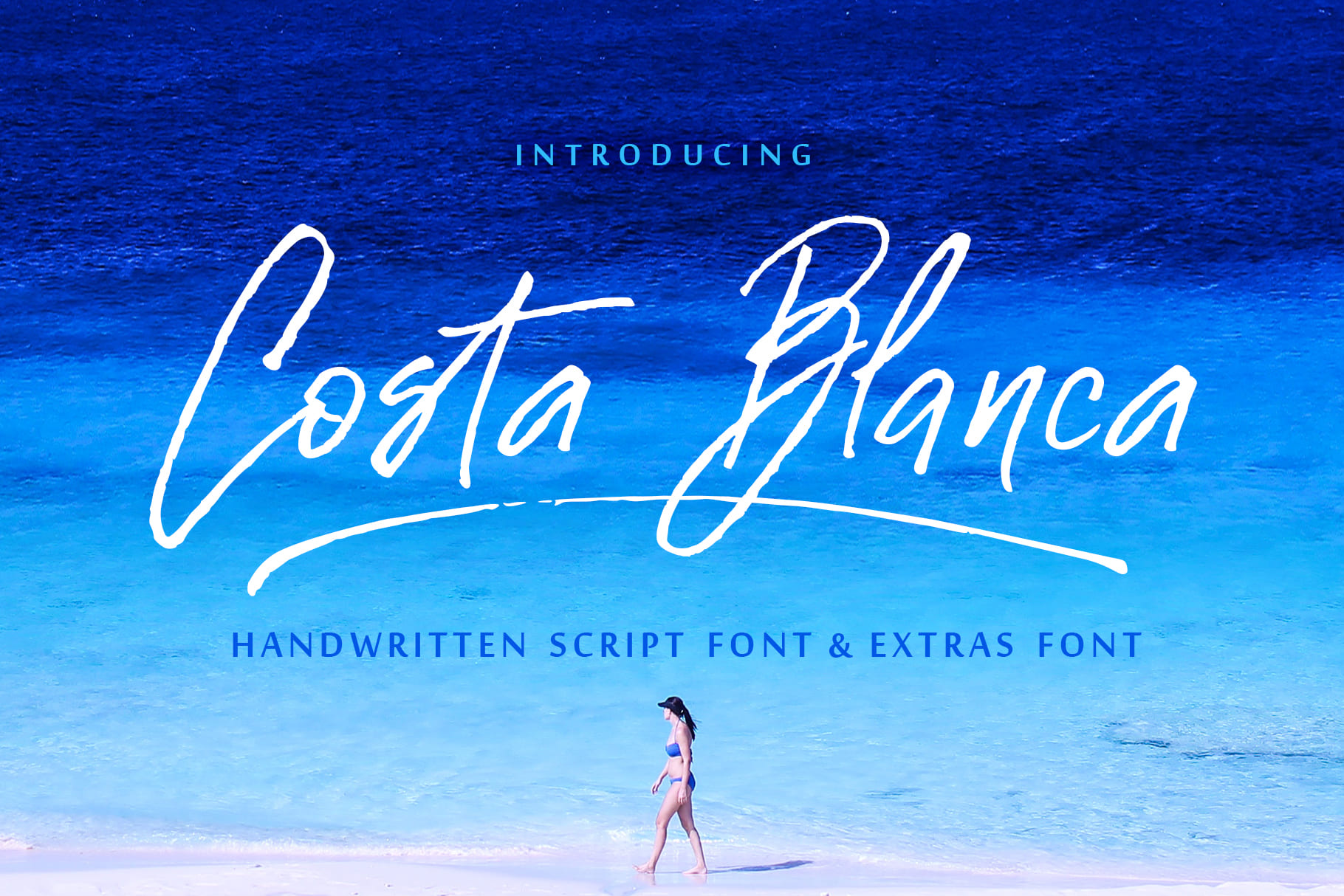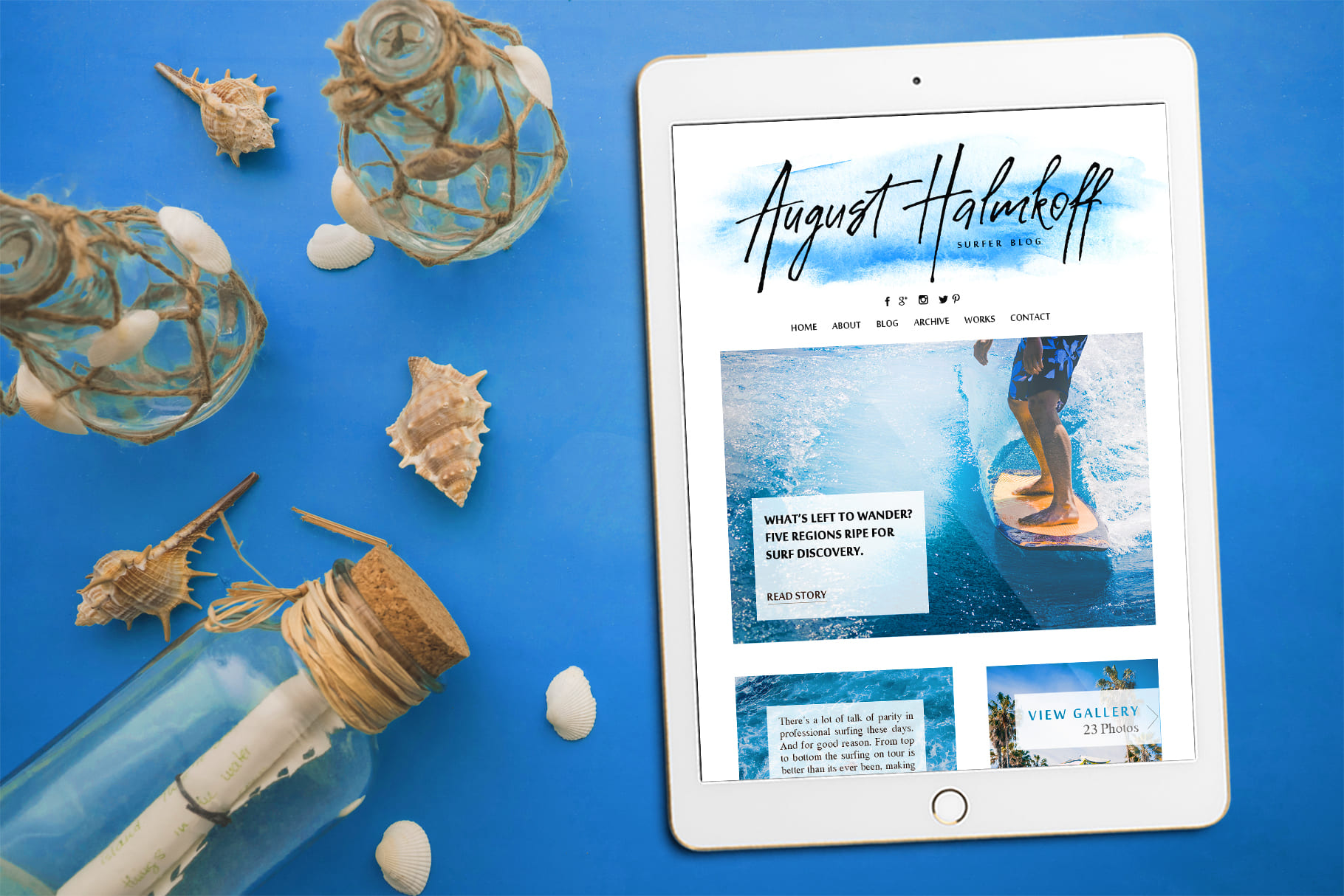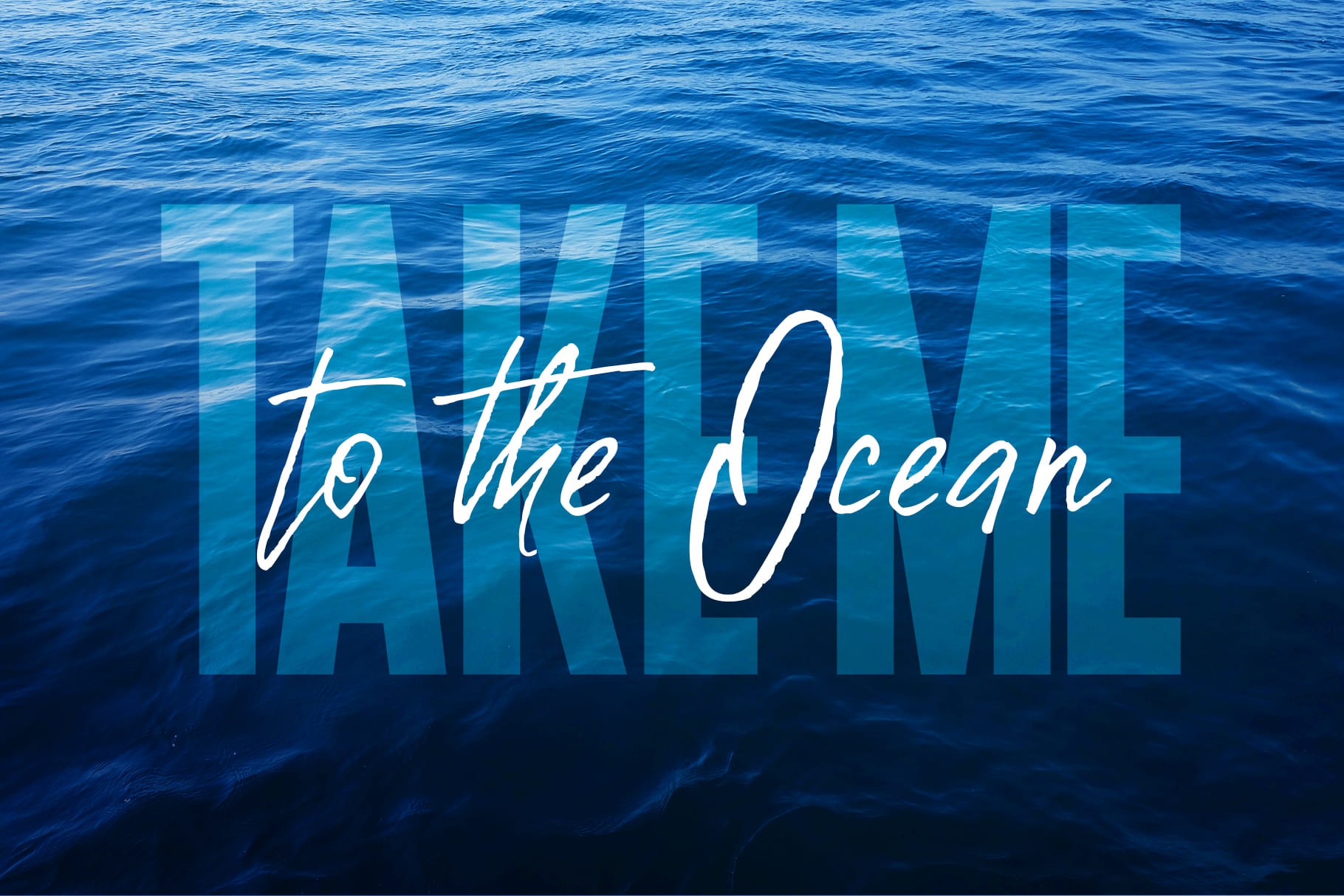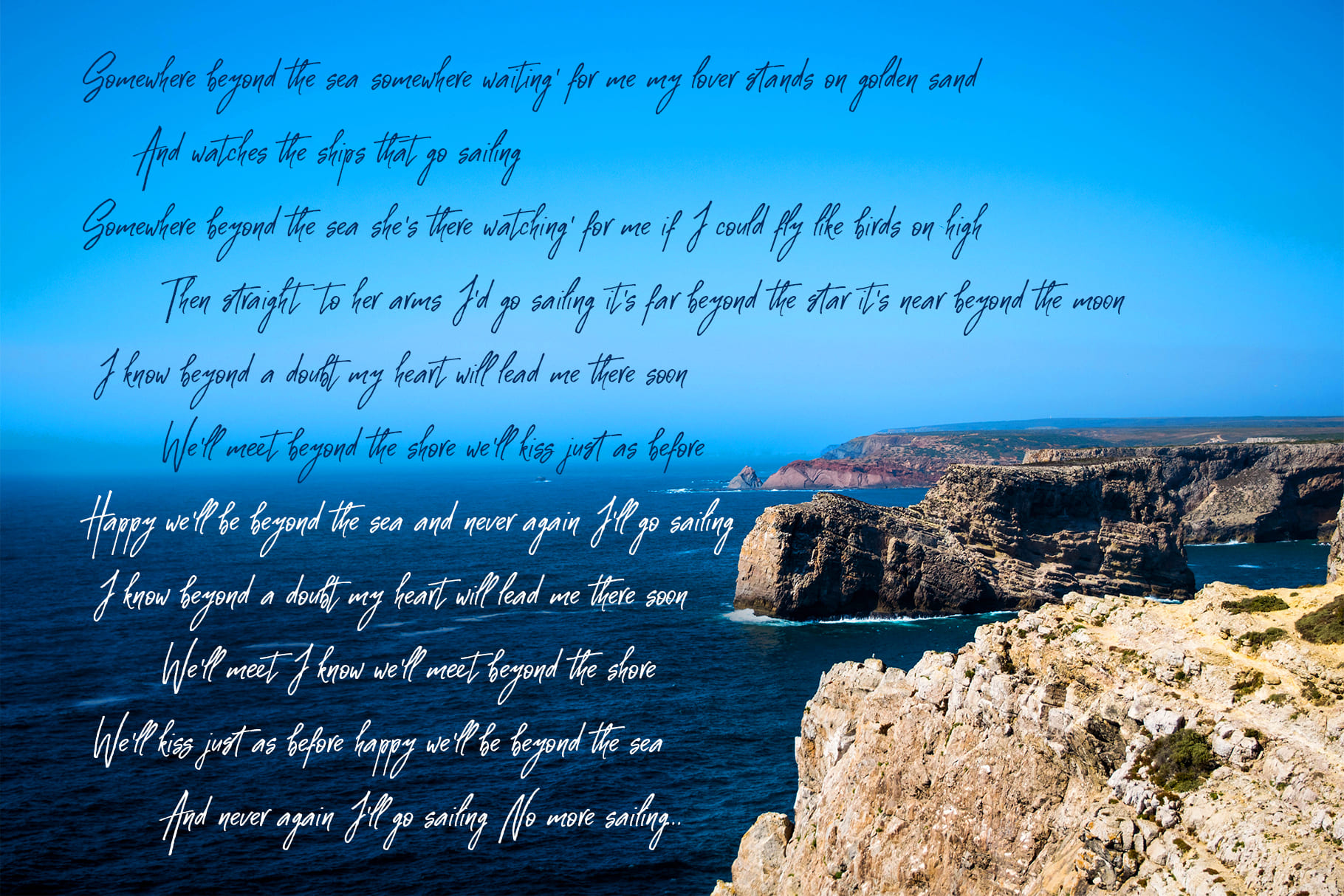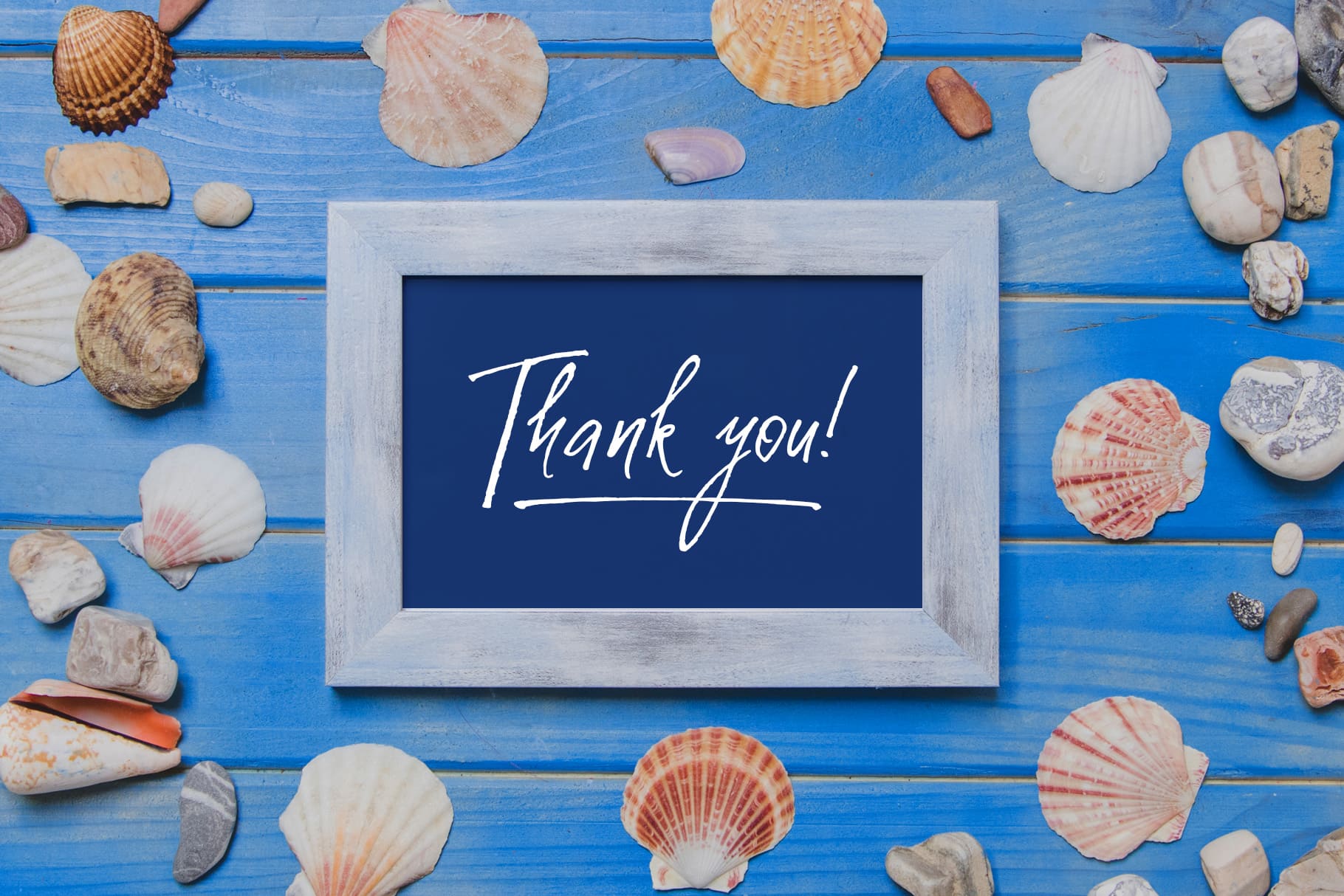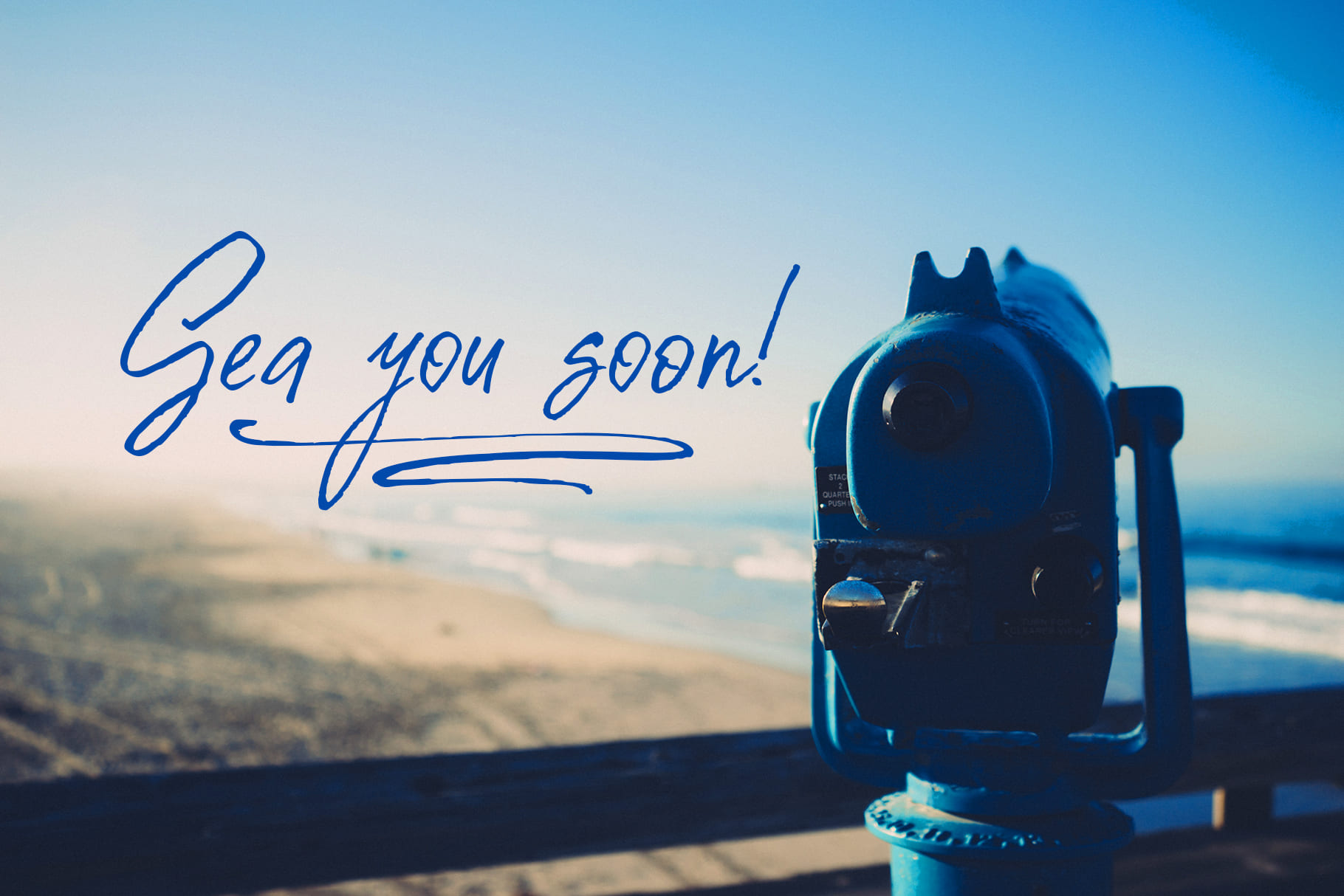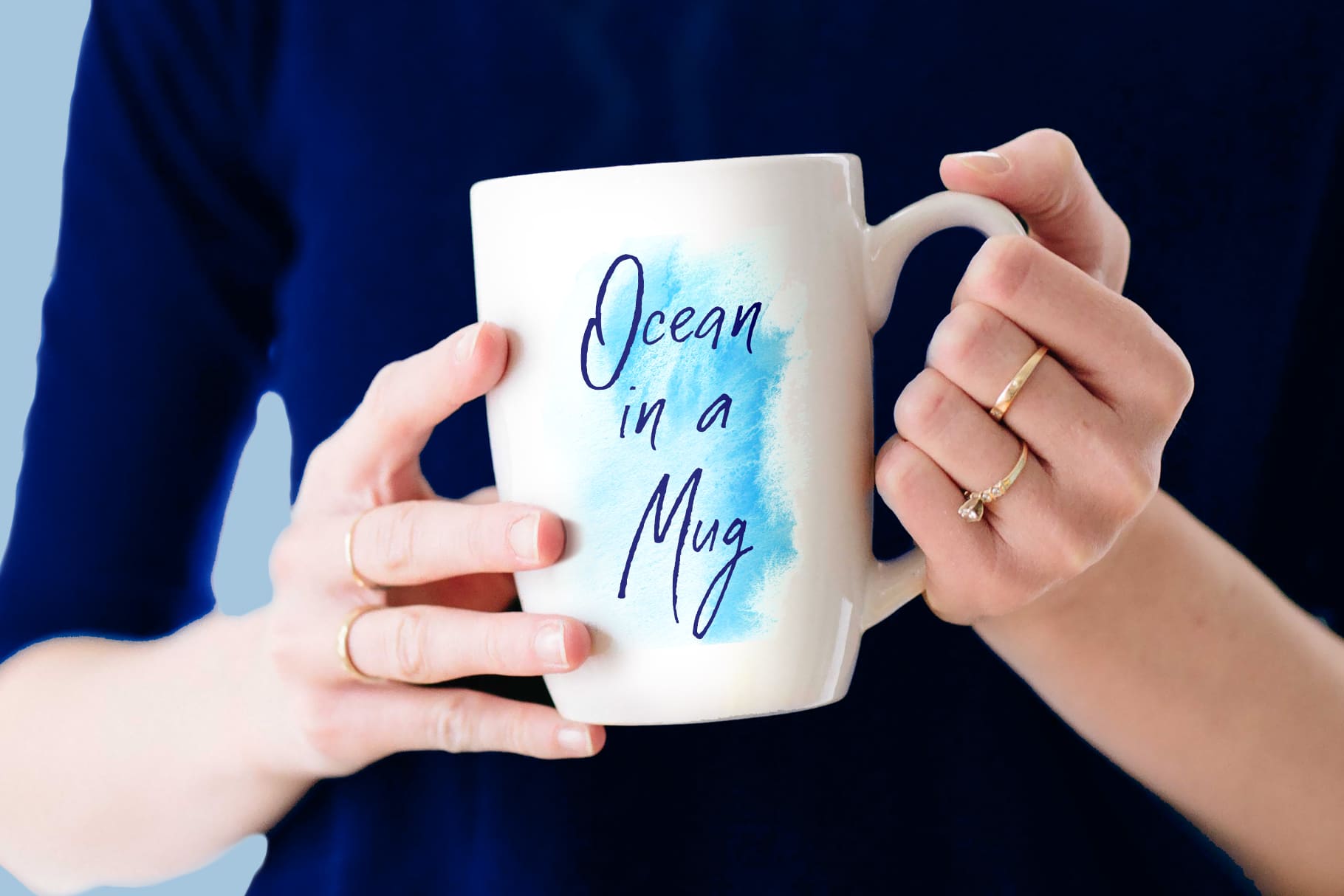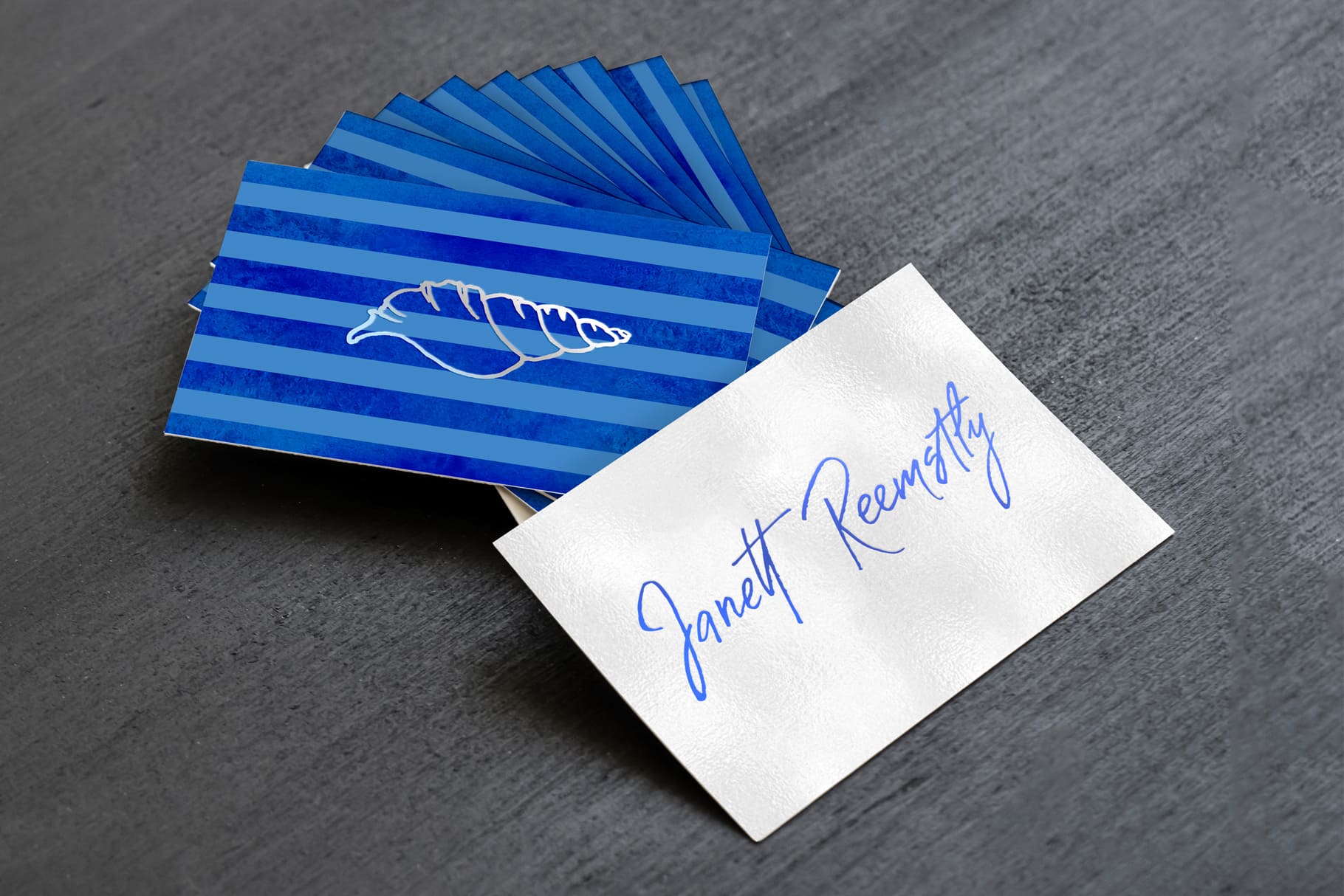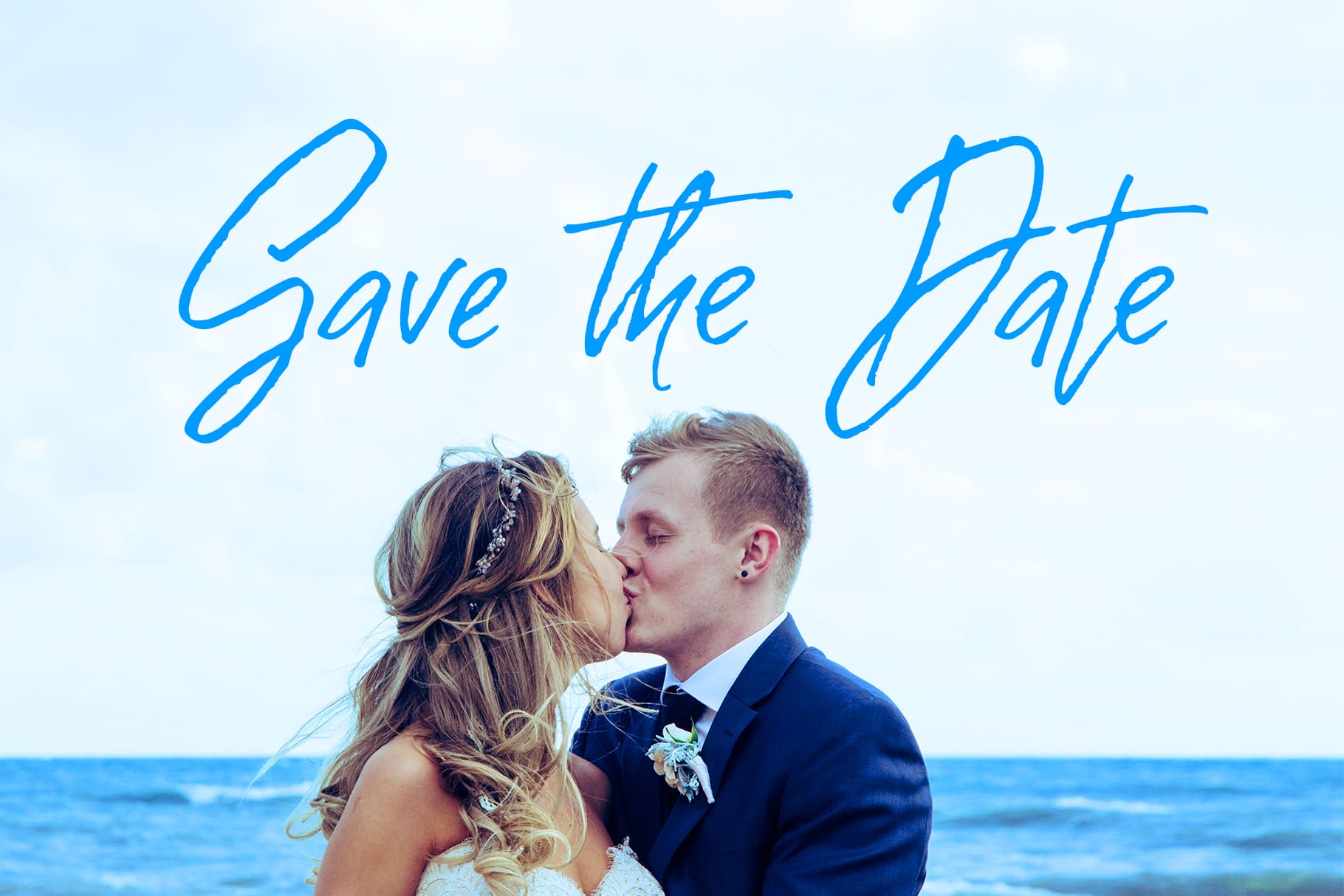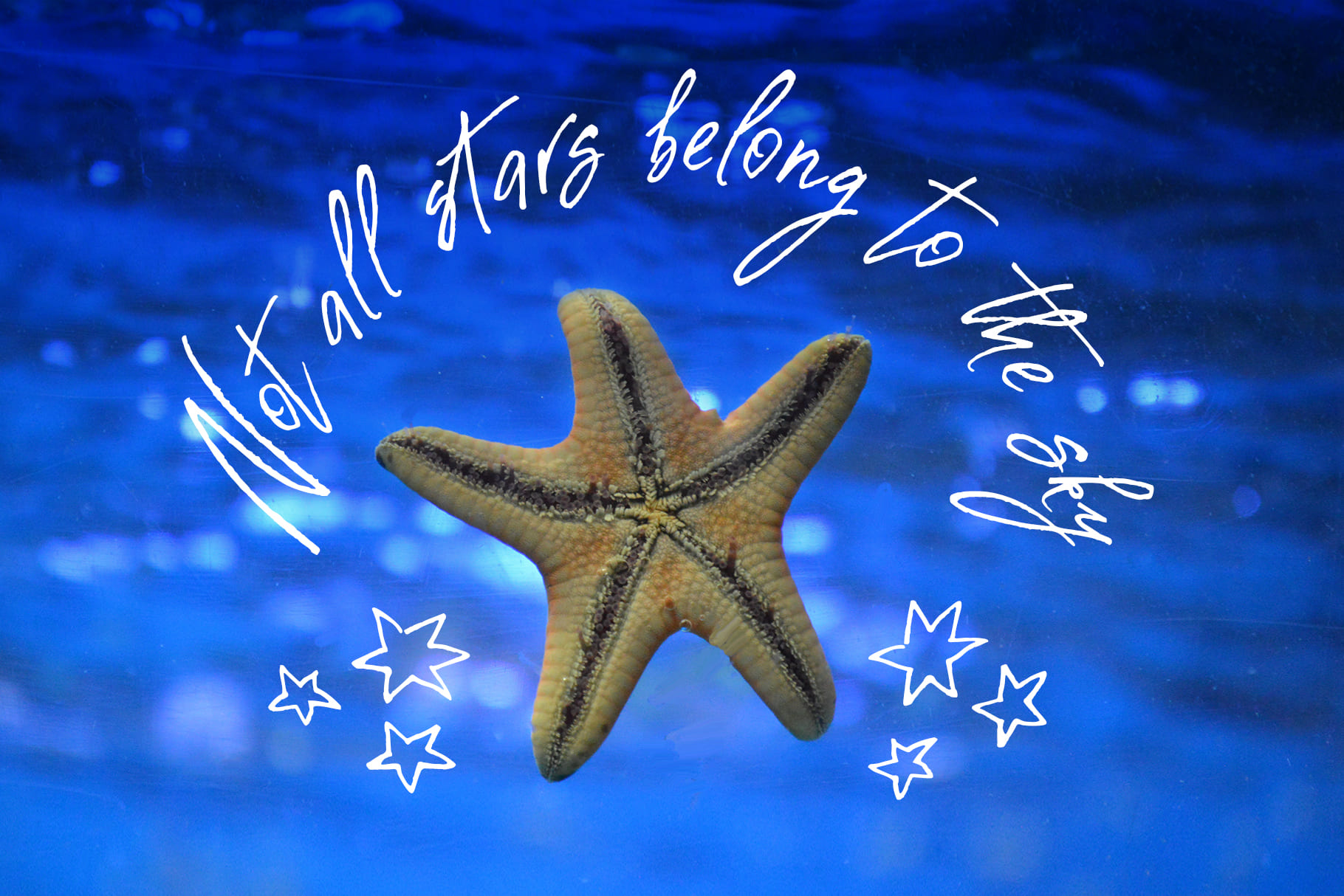
Costa Blanca is a delicate script font with a light textured hand-lettered look adding a personal charm to any of your logos, branding, mugs, cards, wedding stationery and much more.
Costa Blanca script contains a full set of uppercase letters and 2 full sets of lowercase letters and 36 ligatures - which can be used to create a more handwritten look.
Additional symbols contain illustrations and elements that can help make your design more original. It is a font with over 60 unique, hand-drawn illustrations and elements. A different symbol is assigned to every uppercase and lowercase standard character and numbers 0-9 so you don't need a graphics software, just type the letter you need.